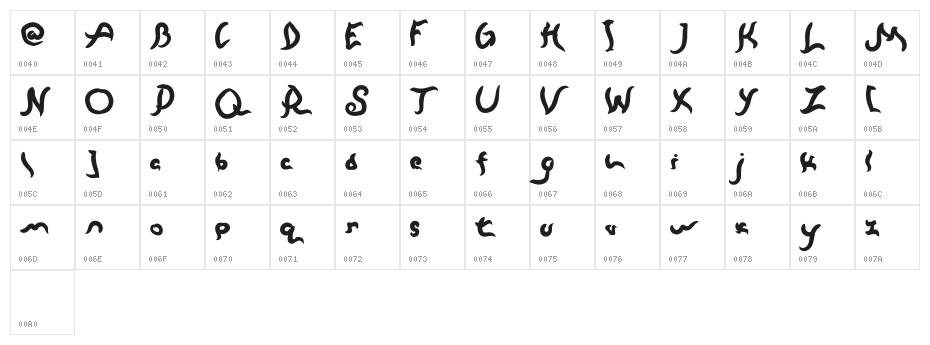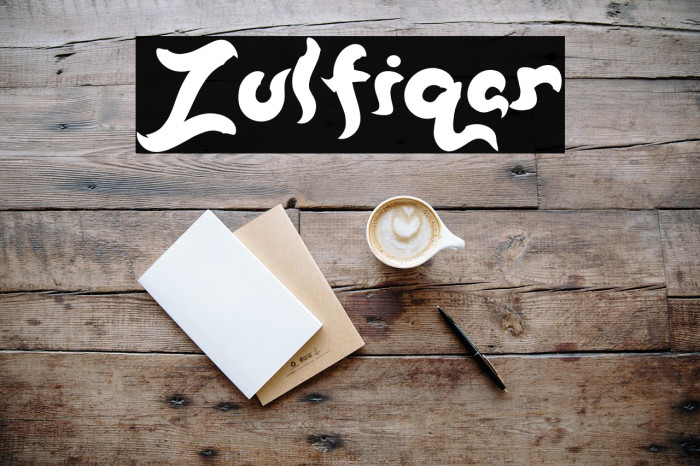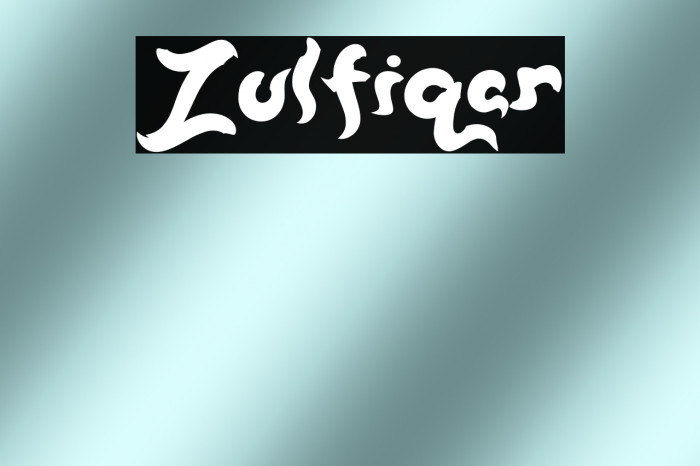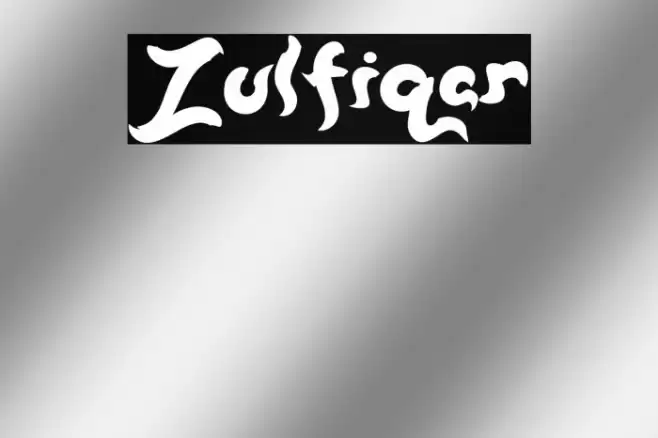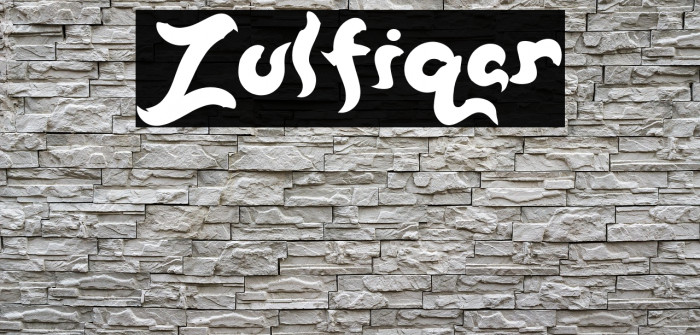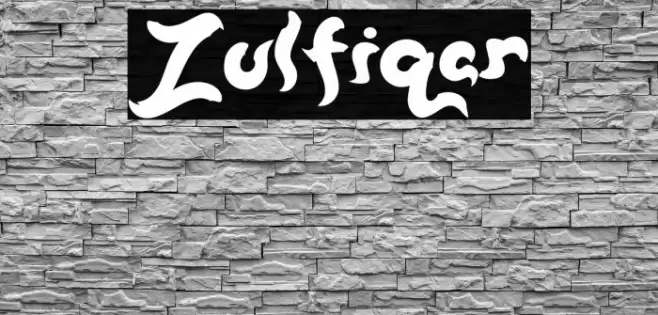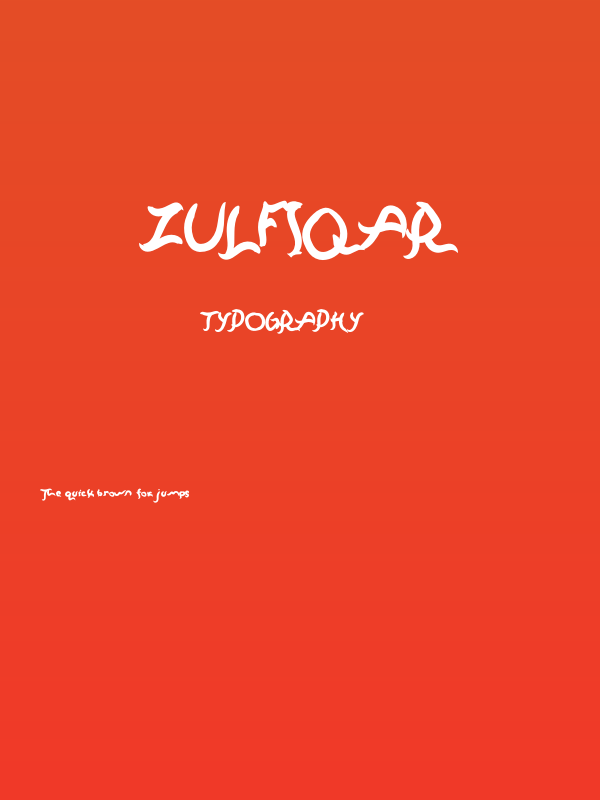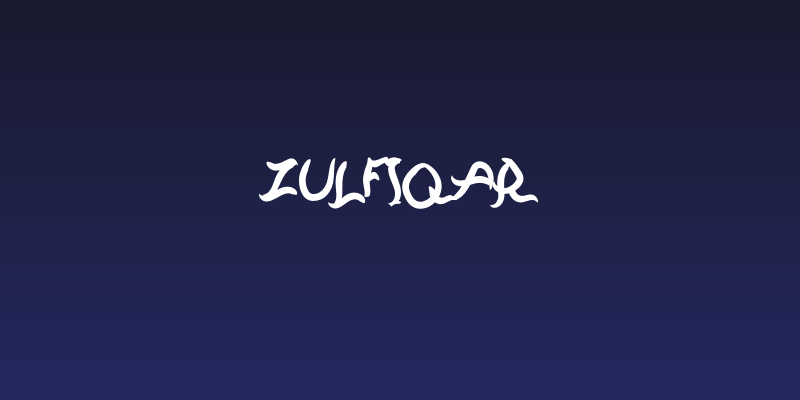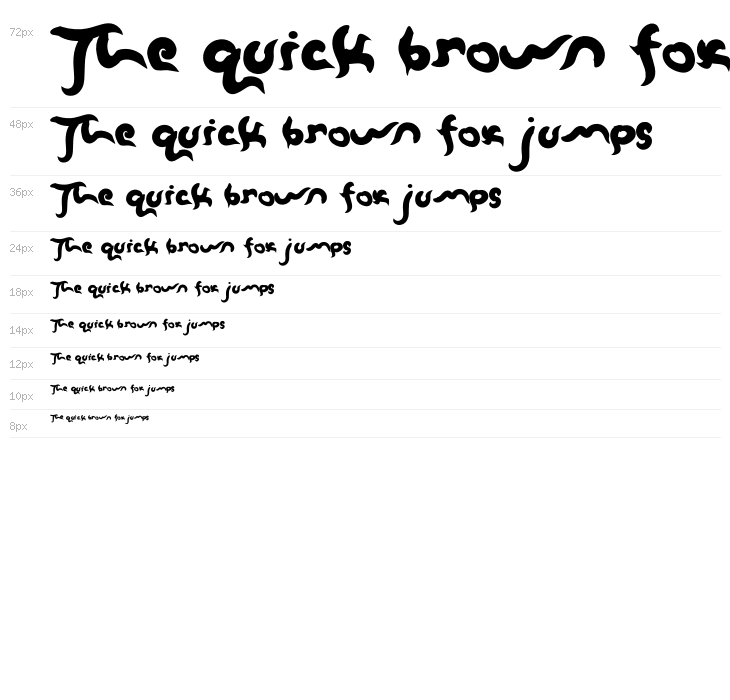
Zulfiqar Font
Zulfiqar Description
This font features a bold and artistic style with a calligraphic influence, characterized by its flowing and dynamic letterforms. The uppercase letters exhibit a strong presence with exaggerated curves and unique terminal ends, while the lowercase letters maintain a consistent fluidity that complements the overall design. The font's distinctiveness is further enhanced by its playful and slightly whimsical appearance, making it stand out in any design context. The numerals and special characters are crafted with the same attention to detail, ensuring a cohesive look across all elements. This font is ideal for projects that require a touch of creativity and flair.
| Overall Style | Artistic, Playful |
| Proposed Projects | Ideal for creative projects such as posters, branding, invitations, and artistic designs. |